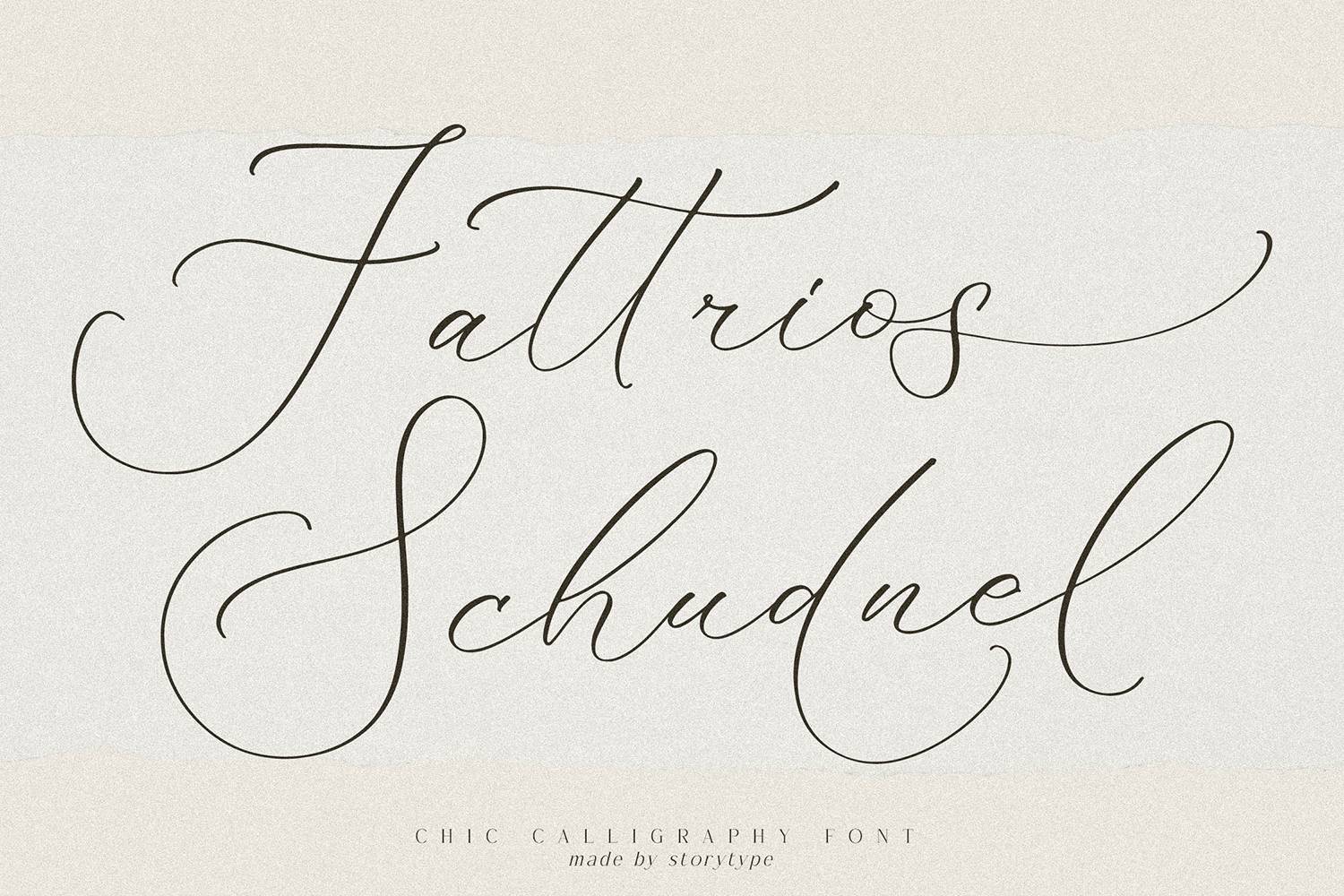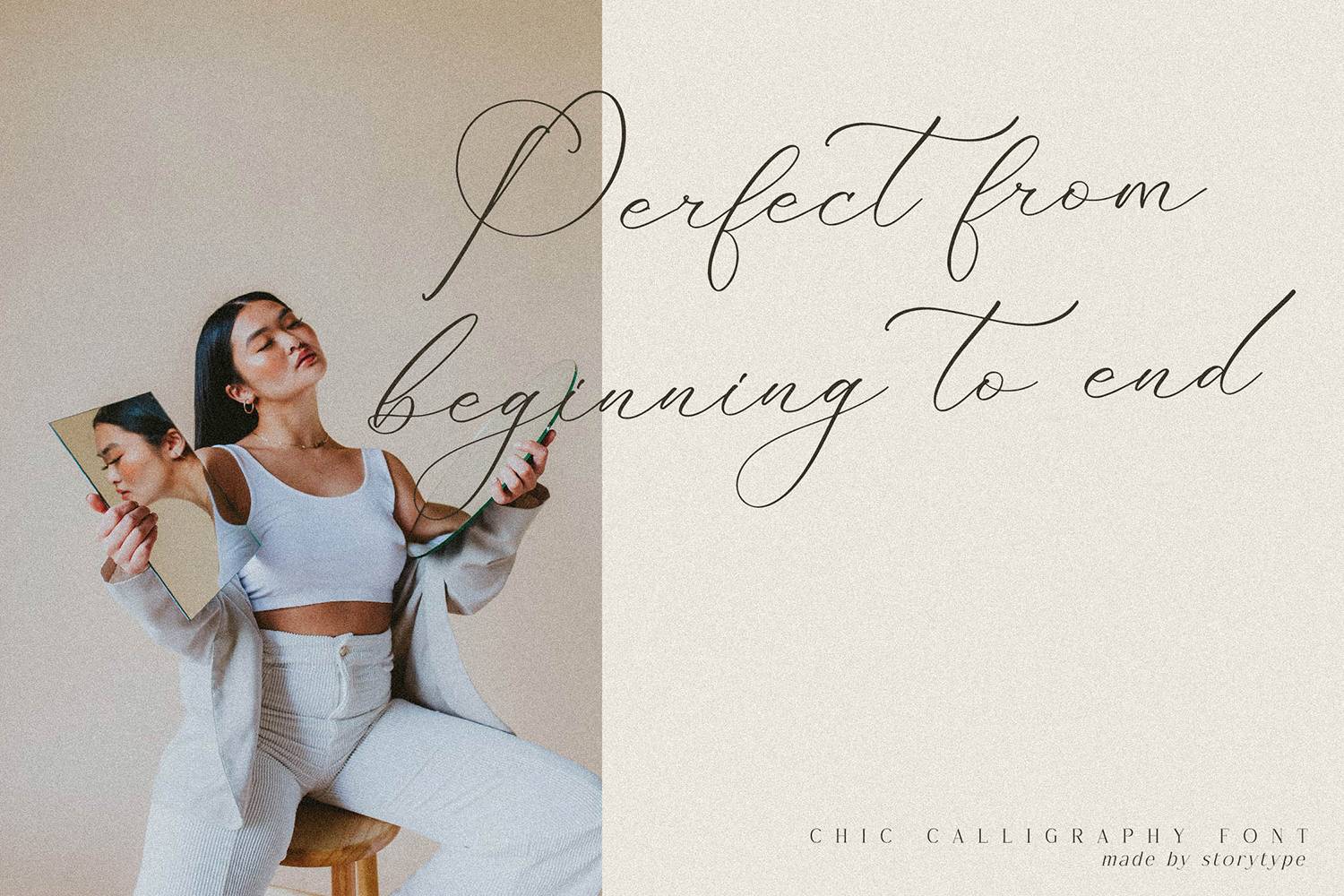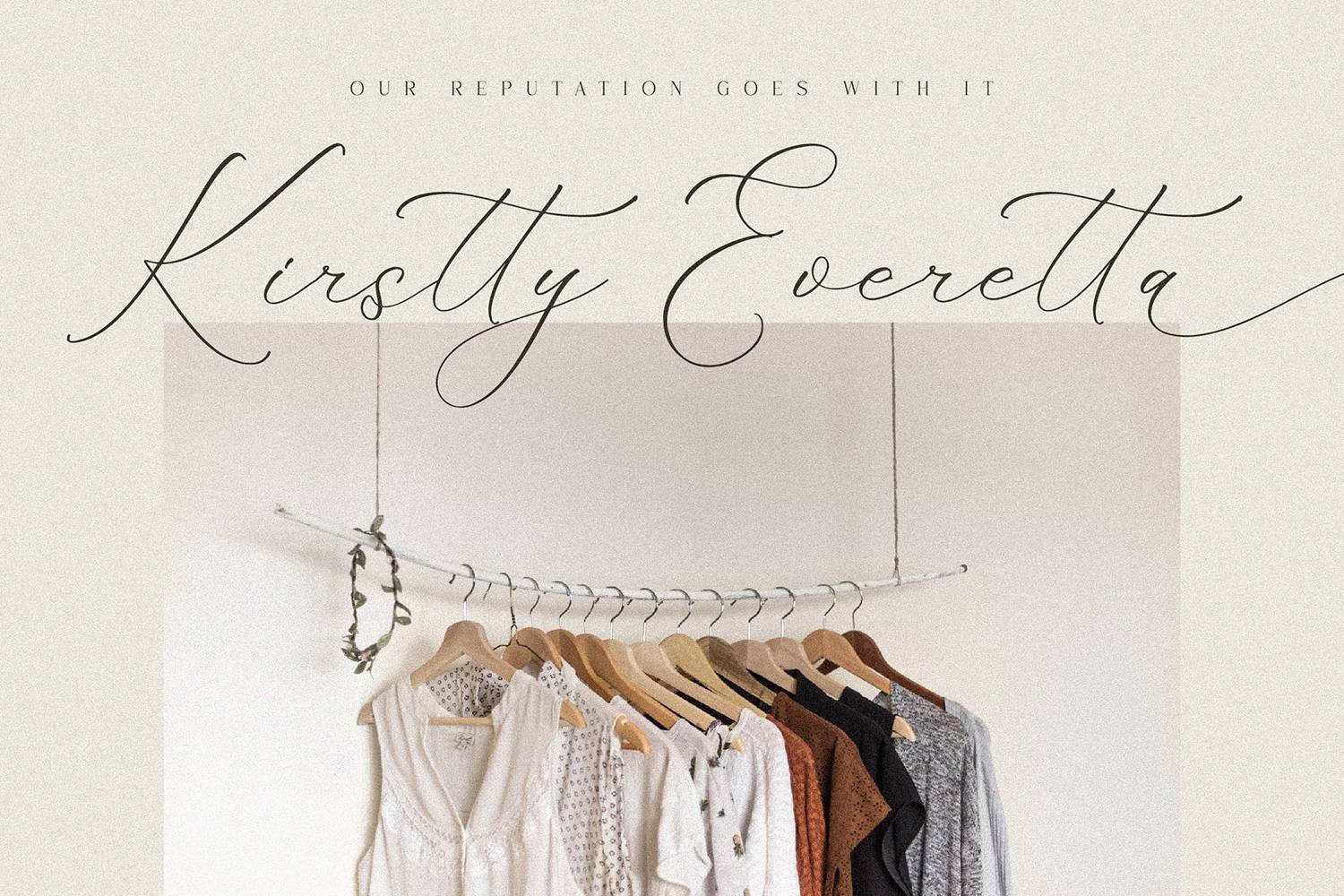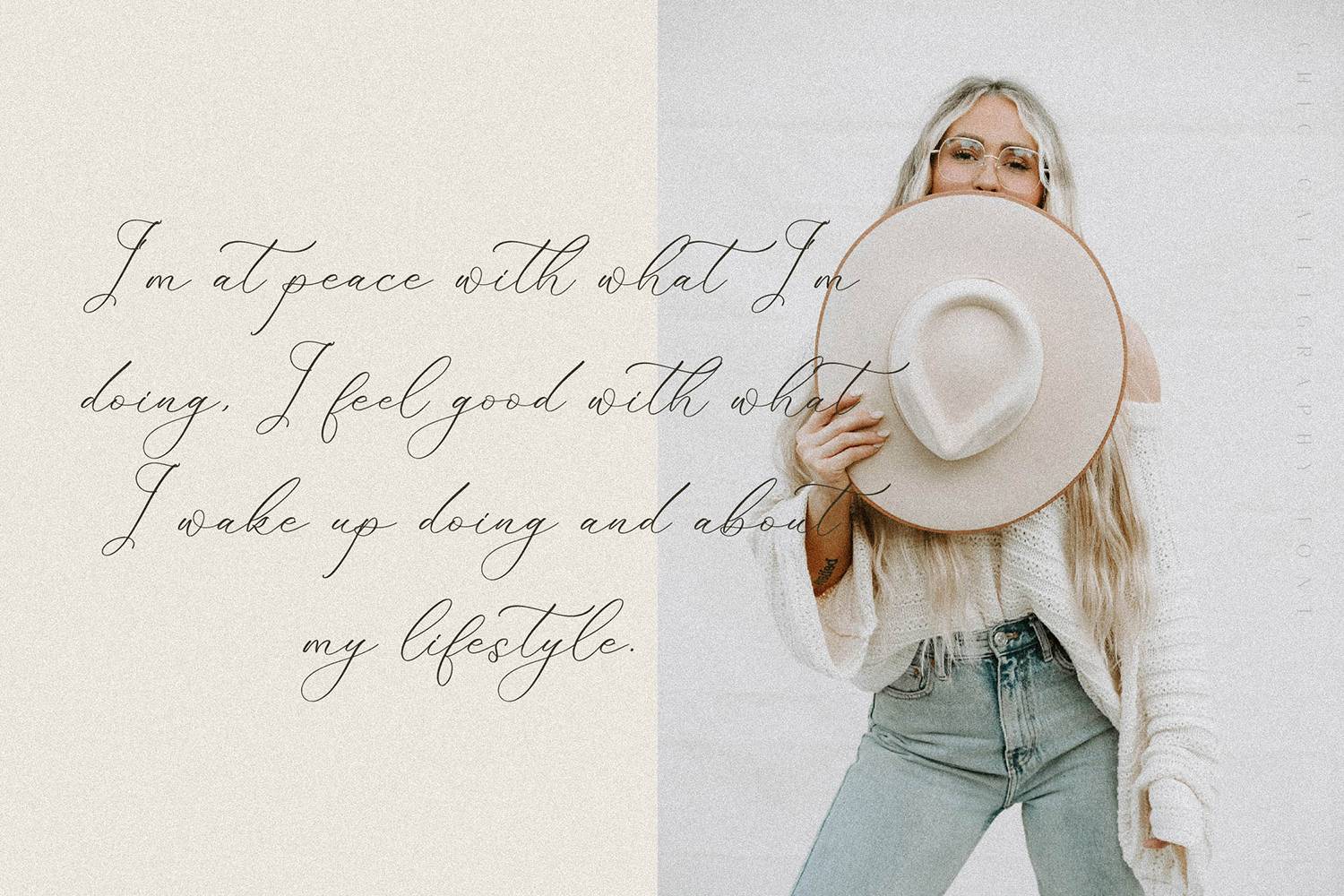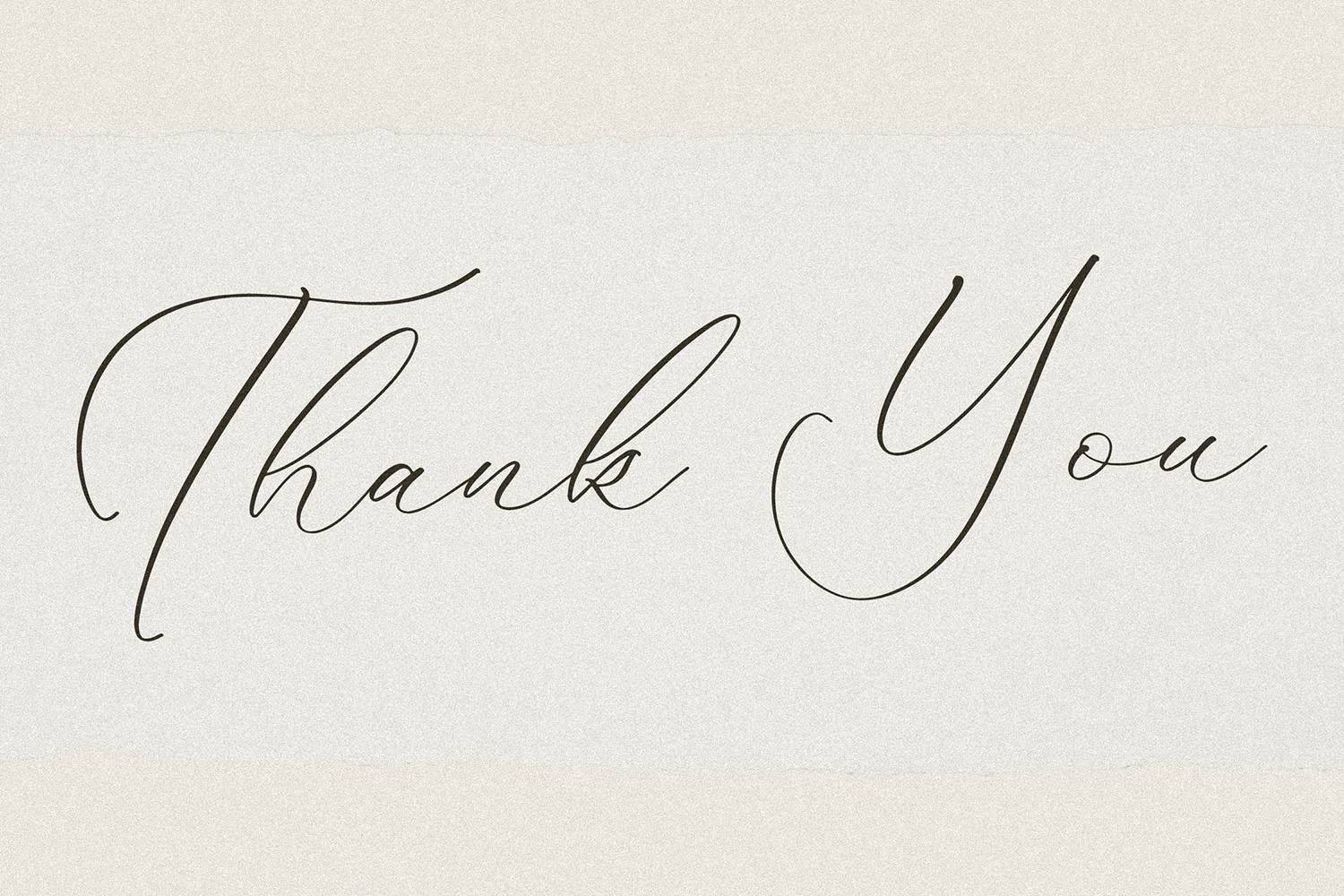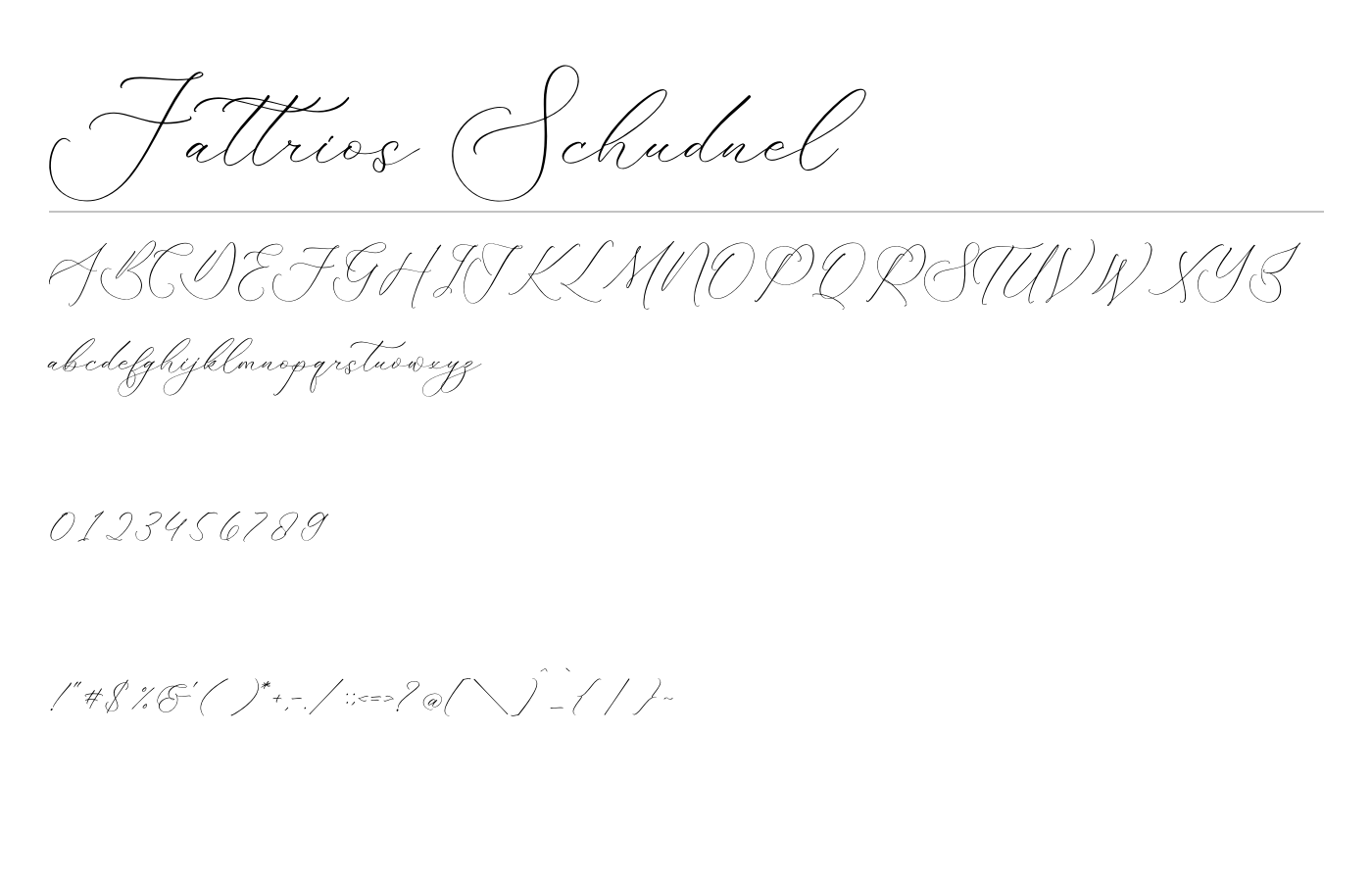
Fattrios Schudnel is an elegant, delicate script font characterized by its thin, flowing lines and graceful, calligraphic style. With its high contrast strokes, elongated letterforms, and stylish swashes, it conveys a sophisticated, romantic feel perfect for luxury branding, wedding invitations, and refined editorial designs. This font shines in applications where a light, airy, and artistic touch is desired to communicate elegance and subtle beauty.
Fattrios Schudnel Font
About Fattrios Schudnel Font